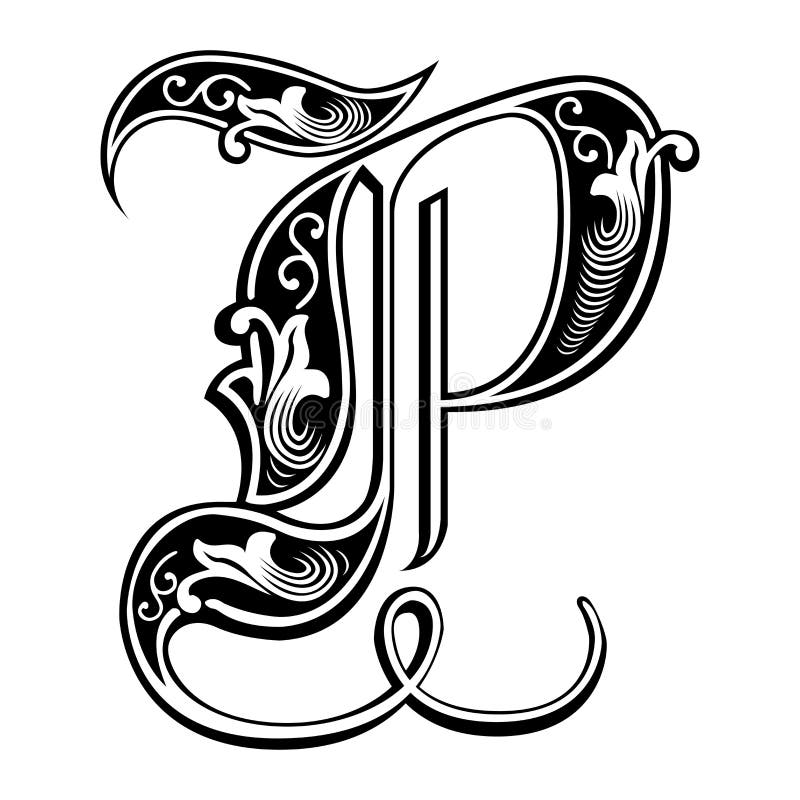
Letter P, in the Gothic style. Vector. Alphabet. Calligraphy and lettering. Medieval Latin letter. Logo for the company. Monogram. Elegant font for tattoo